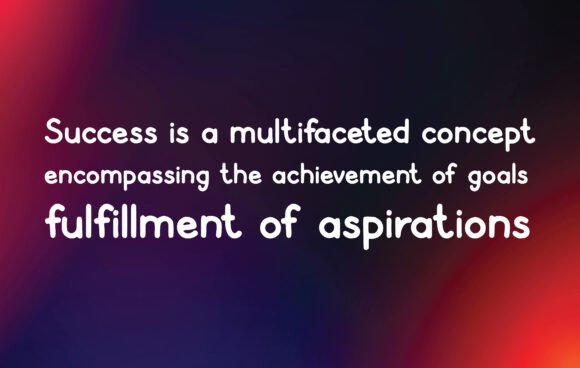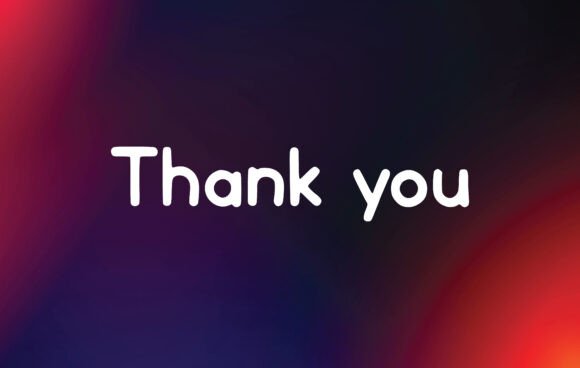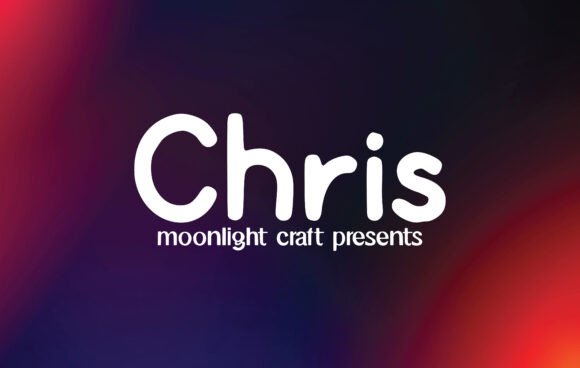
Discover the Beauty of Chris Font: Elevate Your Designs with this Lovely Handwritten Font
Are you a designer or crafter looking for a font that can take your creative ideas to the next level? Look no further than Chris Font, a lovely and beautiful handwritten font that is sure to impress. With its unique and elegant style, Chris Font is the perfect choice for creating eye-catching logos, branding, and quotes that will leave a lasting impression on your audience.
The Characteristics of Chris Font
Chris Font is a carefully crafted handwritten font that boasts a range of characteristics that make it stand out from the crowd. Its flowing lines and delicate curves give it a sense of elegance and sophistication, making it perfect for designs that require a touch of refinement. The font is also highly legible, ensuring that your message is conveyed clearly and effectively.
The Benefits of Using Chris Font
So why choose Chris Font for your design projects? Here are just a few benefits of using this beautiful handwritten font:
• Elegance and Sophistication: Chris Font adds a touch of elegance and sophistication to any design, making it perfect for high-end branding and luxury products.
• Versatility: This font is highly versatile and can be used for a wide range of design projects, from logos and branding to quotes and social media graphics.
• Legibility: Chris Font is highly legible, ensuring that your message is conveyed clearly and effectively.
• Uniqueness: With its unique and distinctive style, Chris Font is sure to help your designs stand out from the crowd.
How to Use Chris Font in Your Designs
Using Chris Font in your designs is easy. Here are a few tips to get you started:
• Pair it with Other Fonts: Chris Font pairs well with a range of other fonts, so don’t be afraid to experiment and find the perfect combination for your design.
• Use it for Headlines and Titles: Chris Font is perfect for headlines and titles, where its elegance and sophistication can really shine.
• Add a Personal Touch: Chris Font is a handwritten font, so don’t be afraid to add a personal touch to your designs by incorporating subtle imperfections and variations.
Who Can Benefit from Using Chris Font?
Chris Font is a versatile font that can be used by a wide range of designers and crafters, including:
• Graphic Designers: Chris Font is perfect for graphic designers who need to create eye-catching logos, branding, and marketing materials.
• Social Media Managers: This font is great for social media managers who need to create engaging and shareable content.
• Crafters and Makers: Chris Font is also perfect for crafters and makers who need to create beautiful and unique branding and packaging for their products.
In conclusion, Chris Font is a beautiful and versatile handwritten font that is sure to elevate your designs to the next level. With its elegance, sophistication, and legibility, it’s the perfect choice for creating eye-catching logos, branding, and quotes. Whether you’re a graphic designer, social media manager, or crafter, Chris Font is a must-have font that is sure to inspire your creativity and help you achieve your design goals.